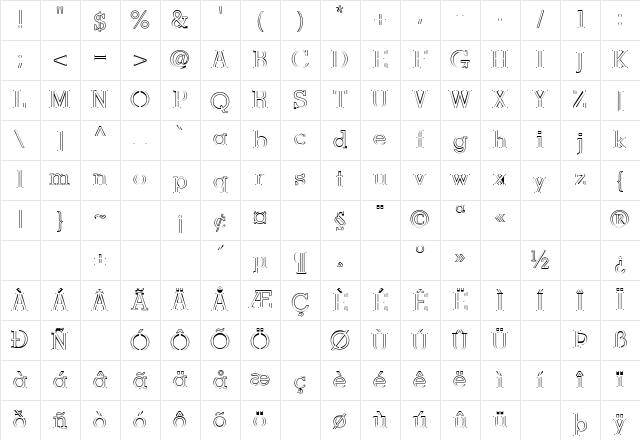
Marge 1 Regular
Complete Marge 1 Regular glyph index. Displaying only characters natively supported by Marge 1 Regular font.
Design Context for Marge 1
Marge 1 is a composed and adaptable typeface that performs quietly and consistently across a wide range of design contexts.